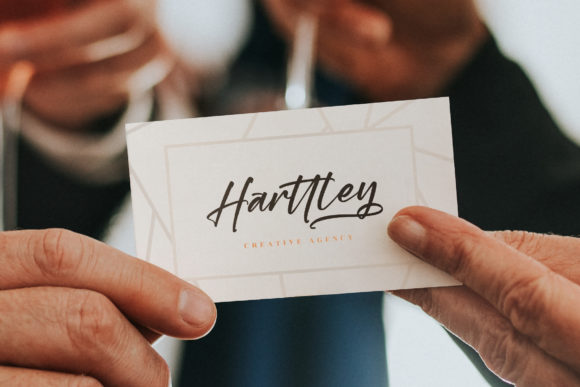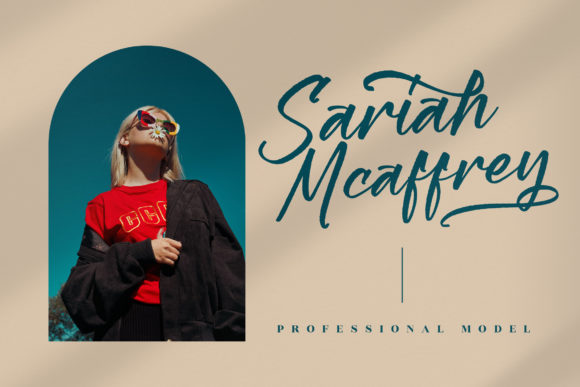
Gaines Font
db-ku.com - Script & Handwritten -- Gaines is a modern handwritten brush font designed to charm your projects. Use this for event posters, food packaging, stationery designs, and so much more!